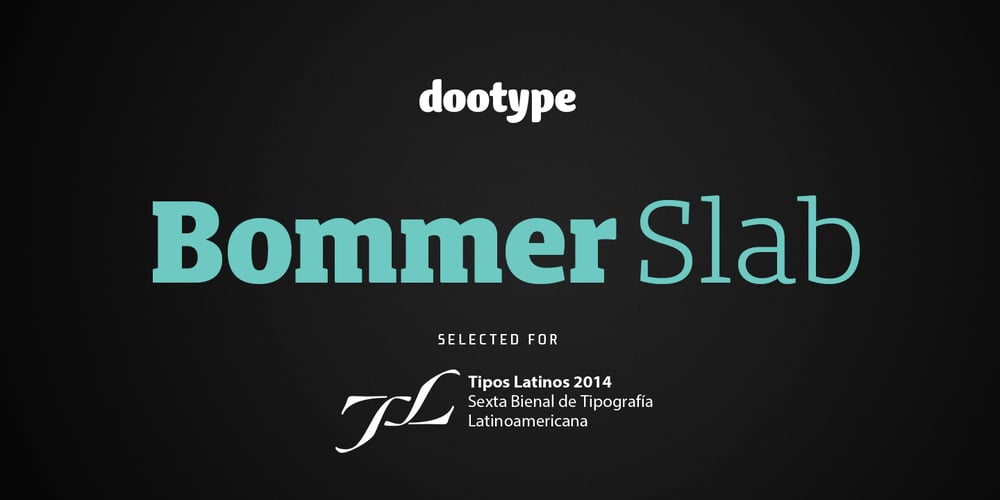
Bommer Slab Font Family was designed by Eduilson Wessler Coan and published by dooType. Bommer Slab contains 14 styles and family package options. Bommer project started in January of 2014 and I am happy to announce the first family – Bommer Slab – is now ready for release. This family includes 14 weights – being seven uprights and seven italics. This font has a strong personality, that makes it perfect for use in headline sizes but means it also works gracefully within text blocks.